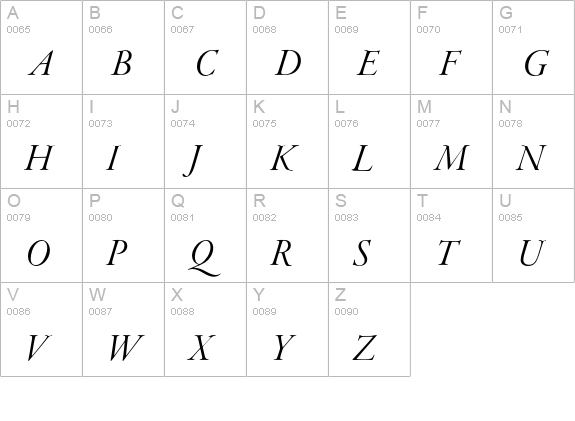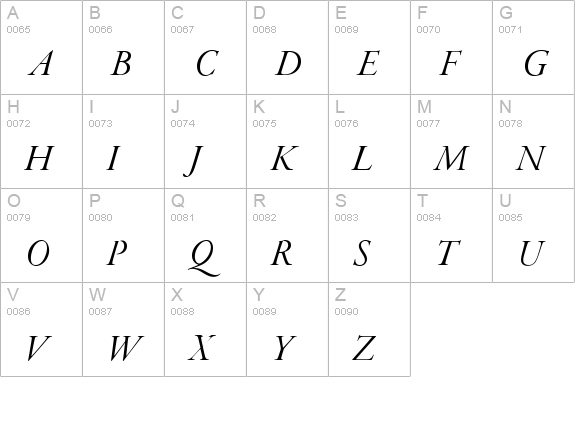
Garamond Premier Pro Italic Display Font Details
Garamond Premier Pro Italic Display is a distinctive, italic variant in the Garamond typeface family \xE2\x80\x94 well suited to design and typography projects.
Garamond Premier Pro Italic Display font exudes elegance and sophistication with its graceful and flowing italic design. Perfect for adding a touch of refinement to any project, this font embodies classic beauty and timeless appeal. The delicate curves and subtle slant of the italicized characters create a sense of movement and style. And the best part? Garamond Premier Pro Italic Display font is available for free download at FontsMarket.com! Embrace the beauty and versatility of this stunning font without any cost, and elevate your designs with its distinctive charm. Whether you're working on a branding project, editorial layout, or any other creative endeavor, this font is sure to make a statement and leave a lasting impression. Download Garamond Premier Pro Italic Display font today and unlock a world of possibilities for your design projects. Let your creativity shine with this exquisite typeface that combines tradition with a modern flair, all at your fingertips for free.